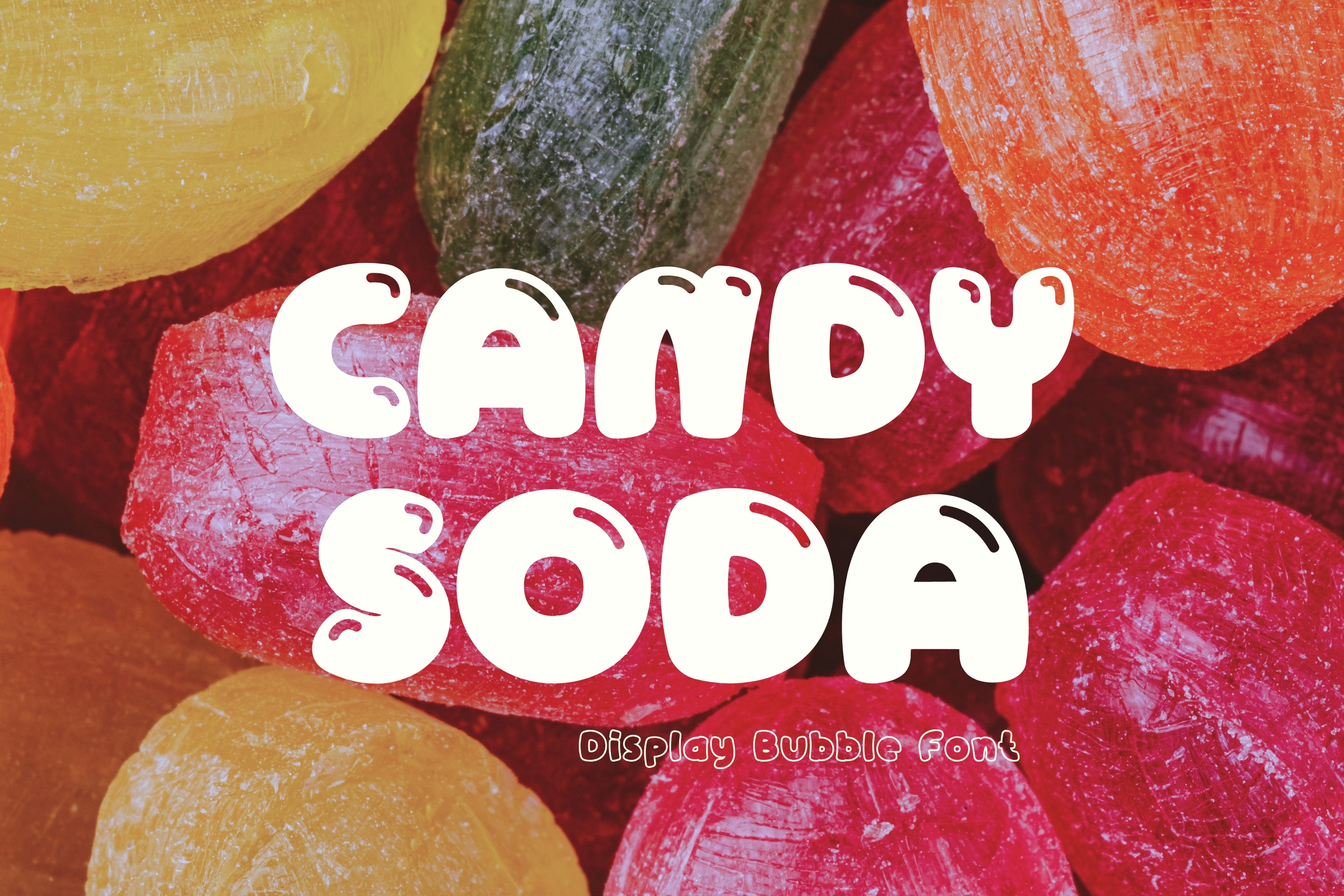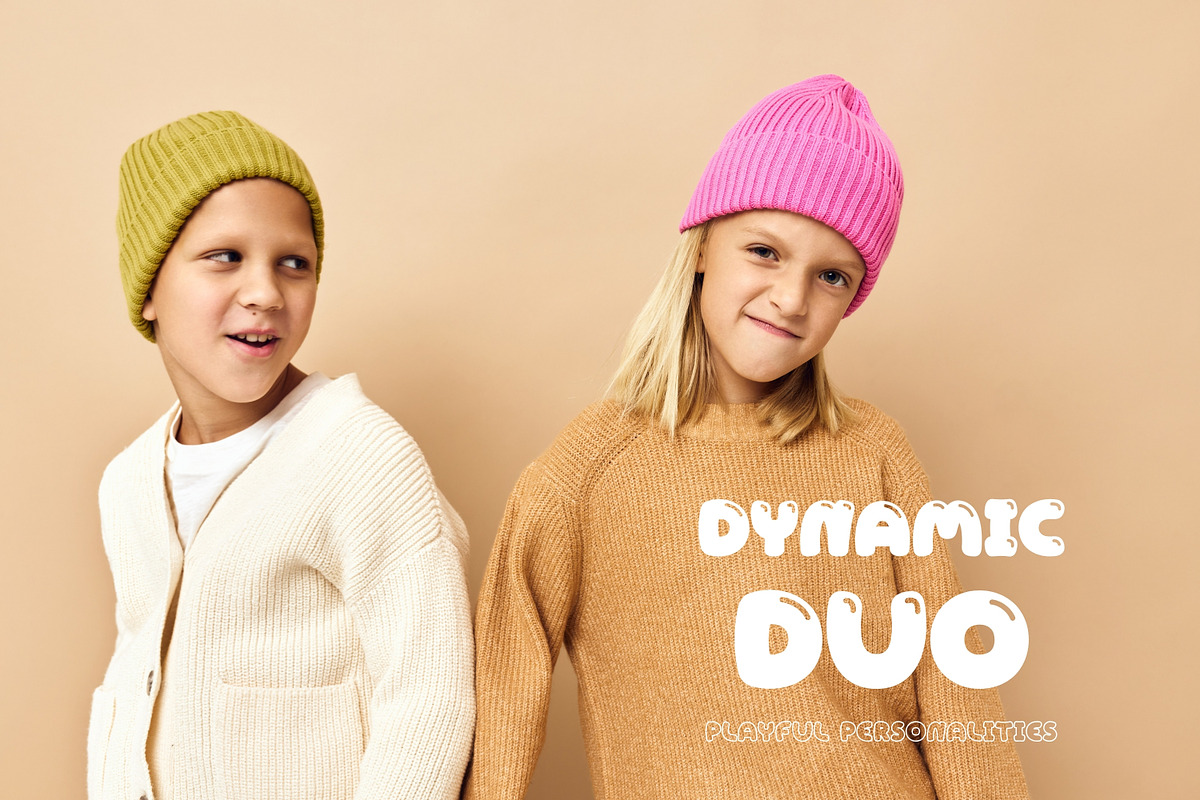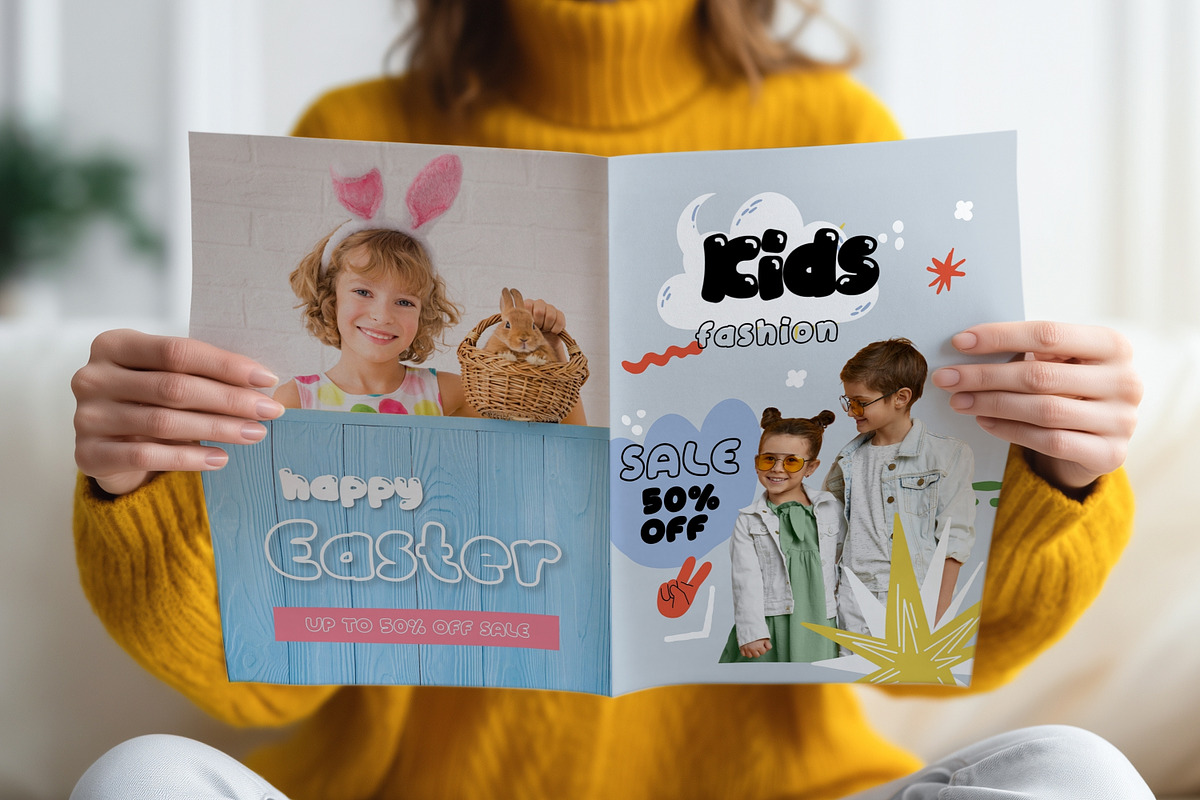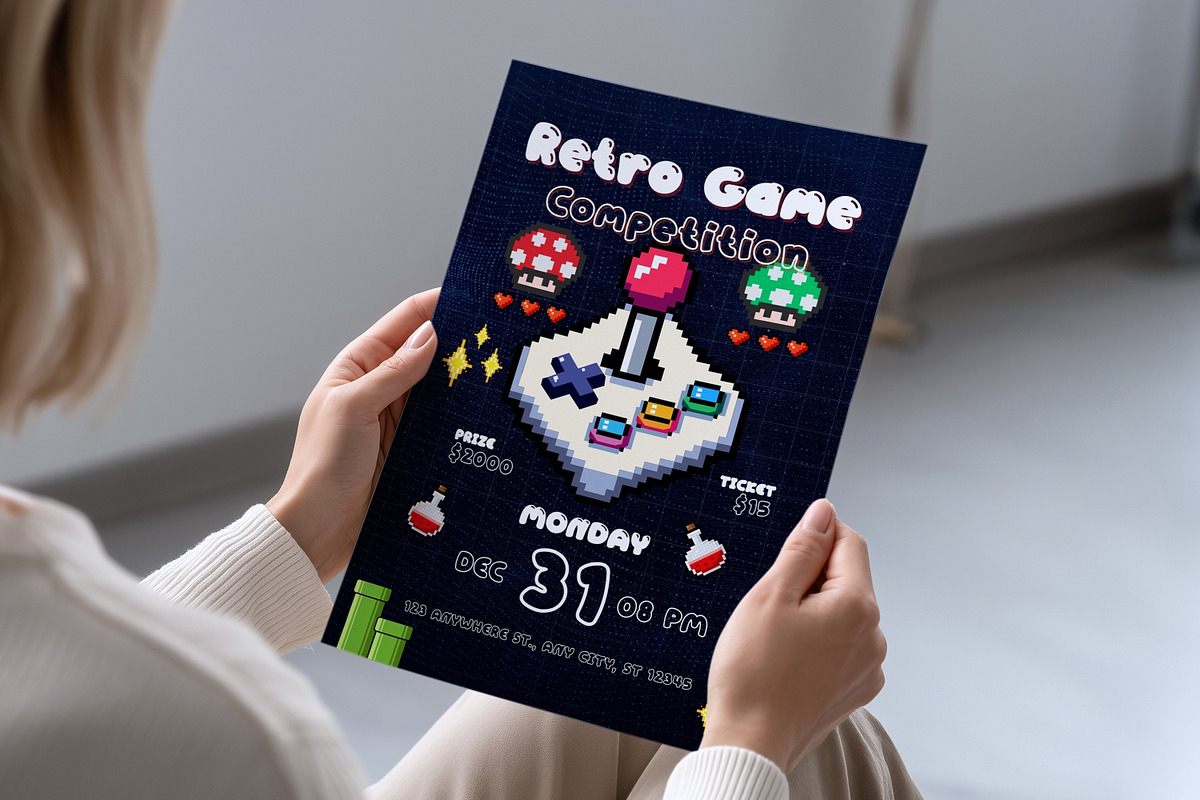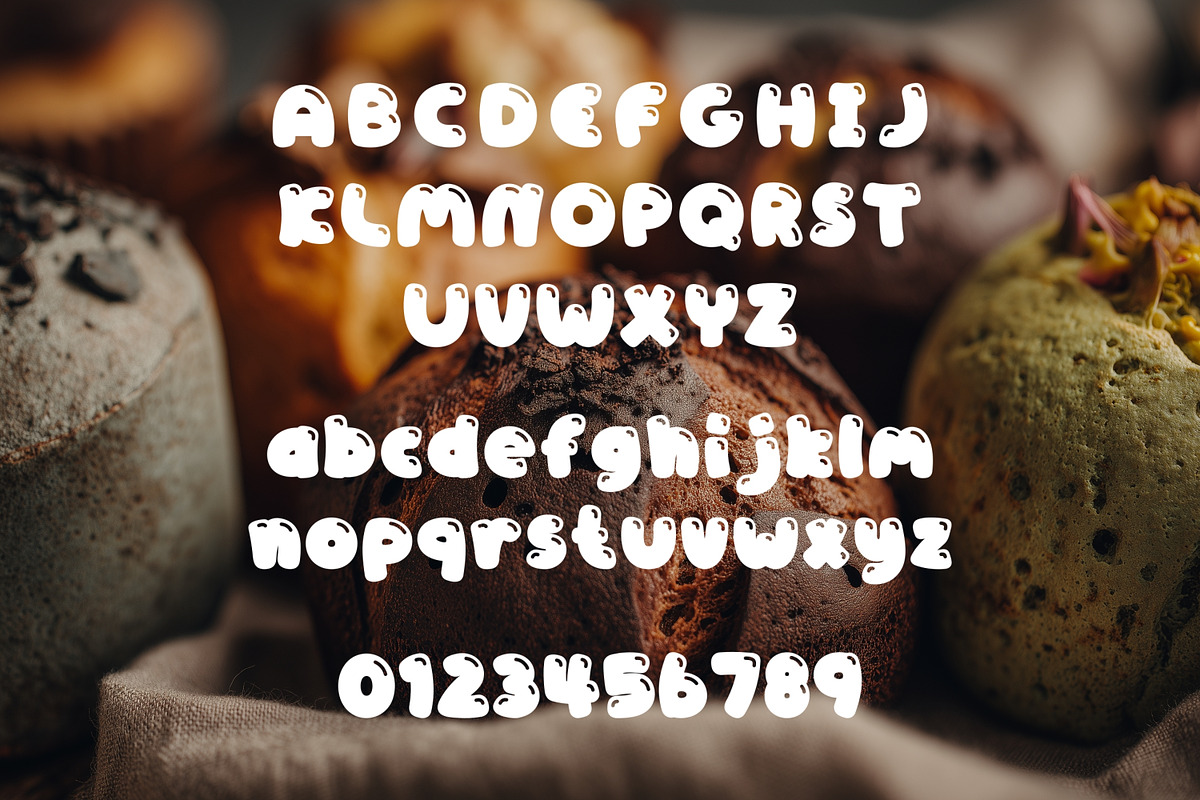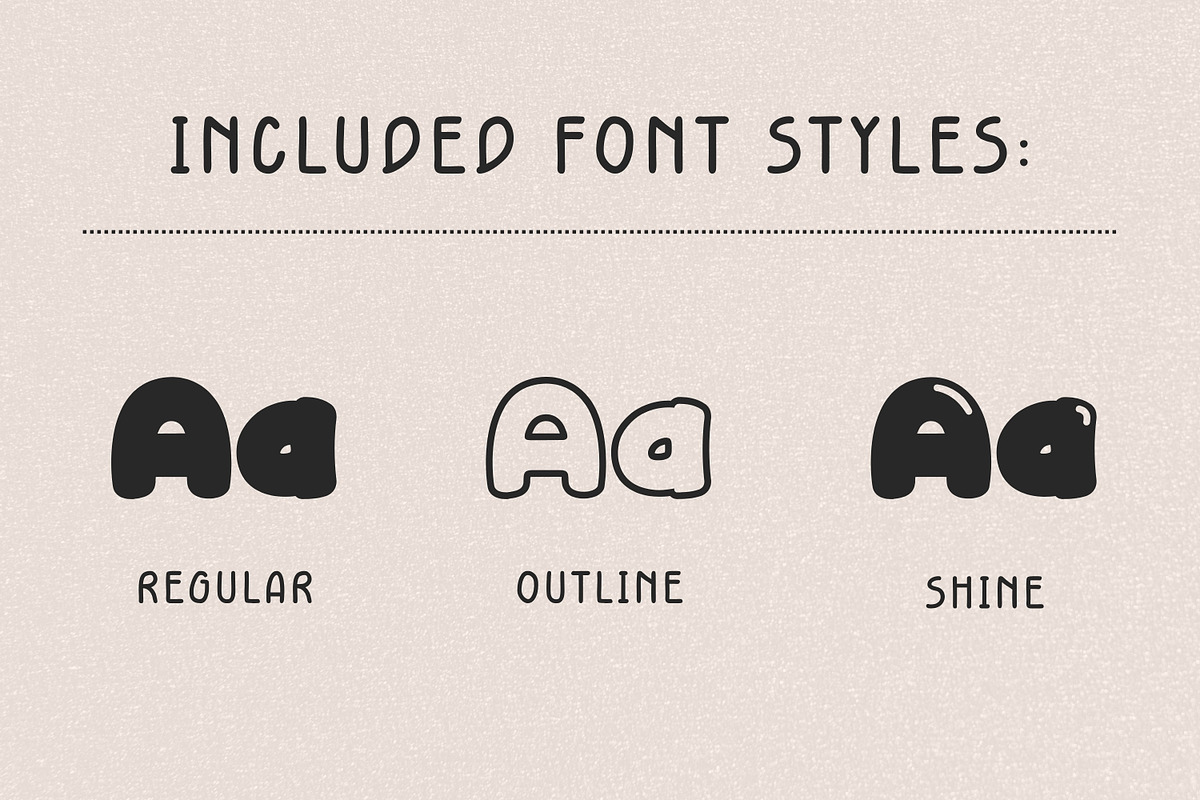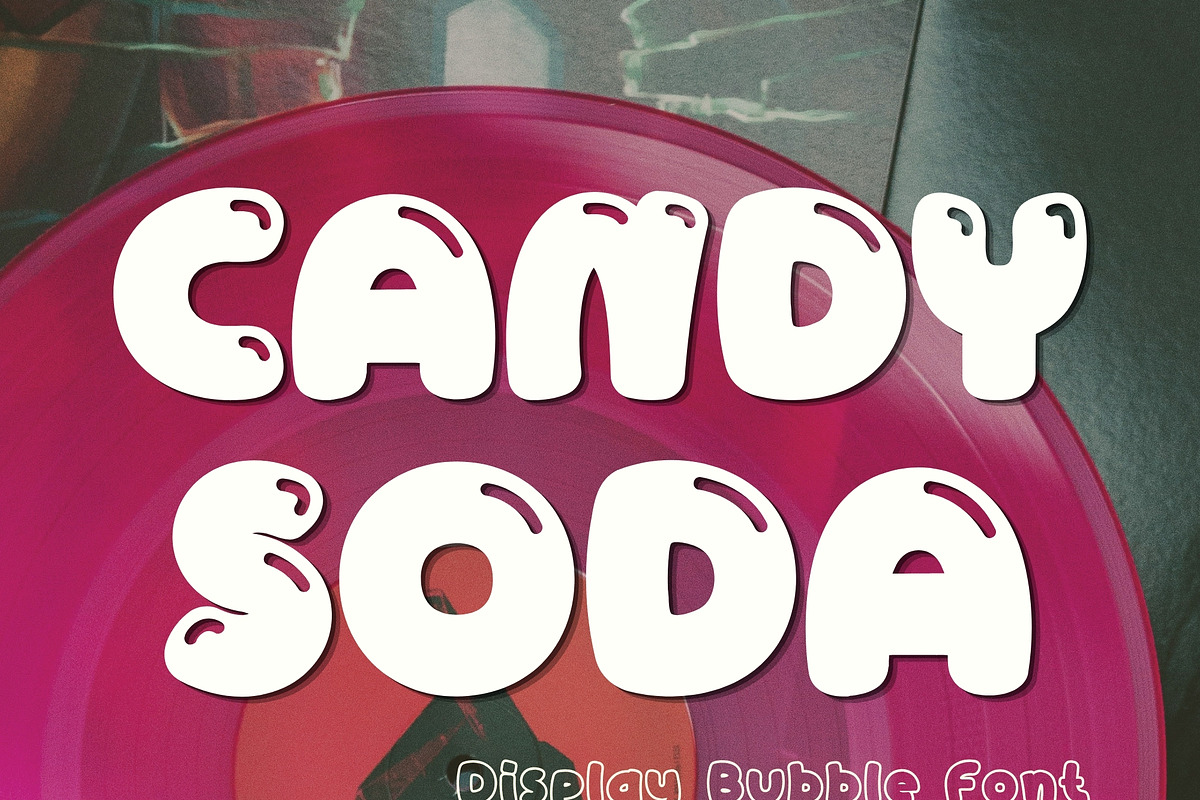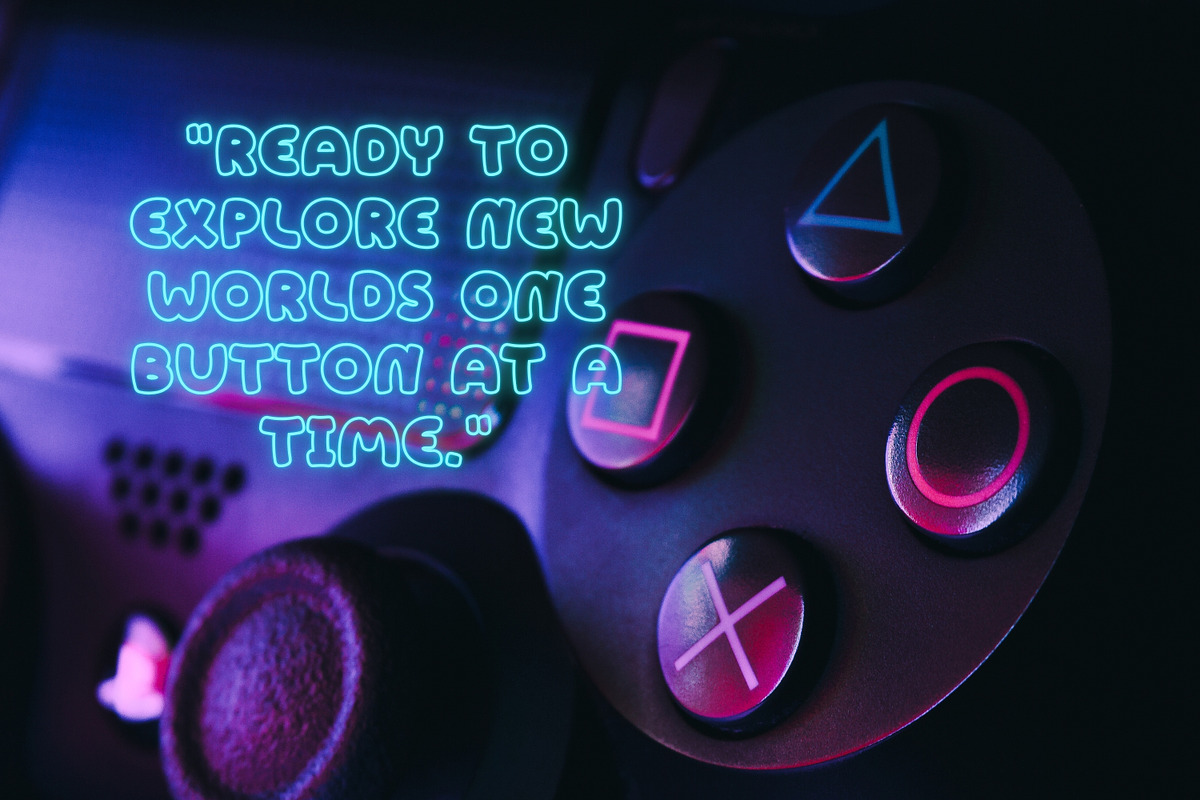
Bubble Display Font - Candy Soda
✨ Candy Soda Font
Add a sweet pop of fun to your designs with Candy Soda, a playful display bubble font inspired by colorful candy and retro soda-shop vibes. This cheerful typeface is perfect for creating eye-catching designs with a cute, bold, and whimsical look.
Whether you're designing for kids, branding sweet products, or creating fun digital projects, Candy Soda brings a joyful and delicious personality to every design.